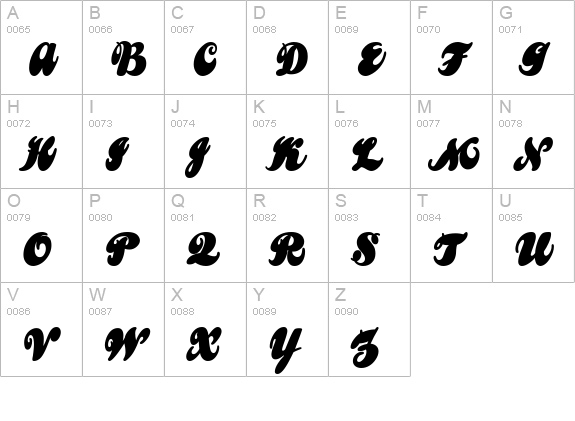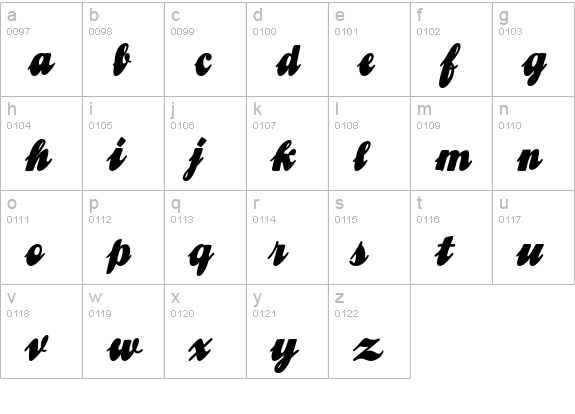
Lemonade ExtraBold Font Details
Lemonade ExtraBold is an extra-heavy, attention-grabbing variant in the Lemonade typeface family \xE2\x80\x94 well suited to high-impact headlines, posters, and bold branding.
Introducing Lemonade ExtraBold, a bold and dynamic font that will add a burst of energy to any design project. With its strong and commanding presence, Lemonade ExtraBold is perfect for headlines, titles, and attention-grabbing messages. This font is a celebration of boldness and creativity, with its thick and juicy letterforms that make a statement with every character. Its unique design combines contemporary flair with a touch of retro nostalgia, resulting in a font that is both modern and timeless. Lemonade ExtraBold is not only visually captivating, but it also offers versatility in its usage. Whether you're designing a poster, a logo, a website, or even a t-shirt, this font will effortlessly elevate your design, making it stand out from the crowd. And the best part? Lemonade ExtraBold is freely available to download at FontsMarket.com. Yes, you read that right - this font can be yours without spending a penny. FontsMarket.com is your go-to source for high-quality fonts, and Lemonade ExtraBold is just one of the many gems waiting to be discovered. So why wait? Download Lemonade ExtraBold now and unleash your creativity like never before. Whether you're a professional designer or a creative enthusiast, this font will inspire and empower you to create amazing designs that leave a lasting impression. Don't miss out on the opportunity to have this bold and captivating font at your fingertips. Get Lemonade ExtraBold today and let your imagination run wild.